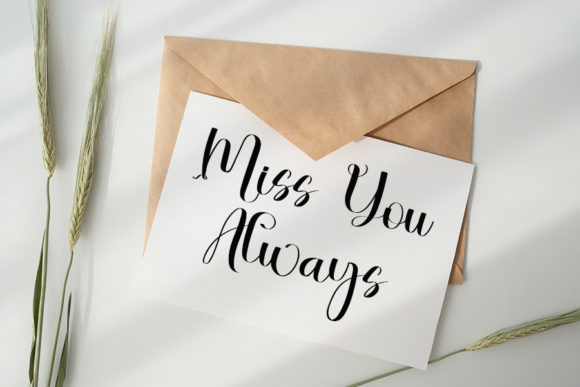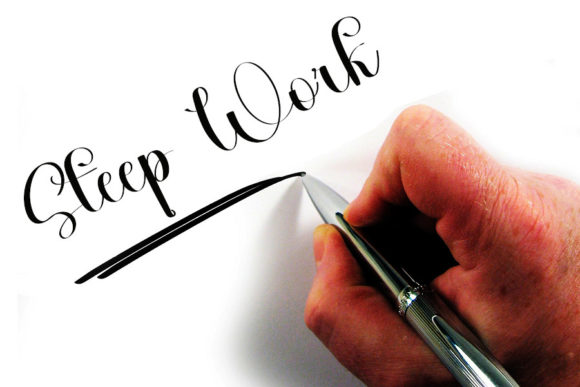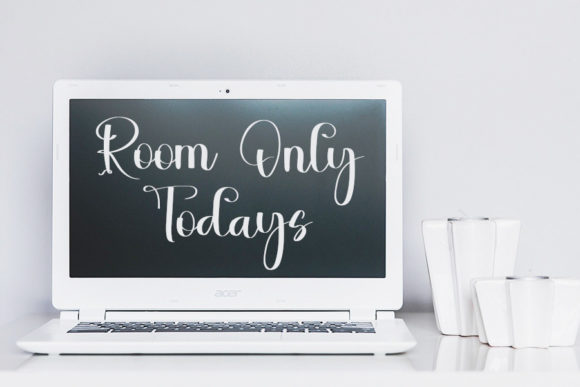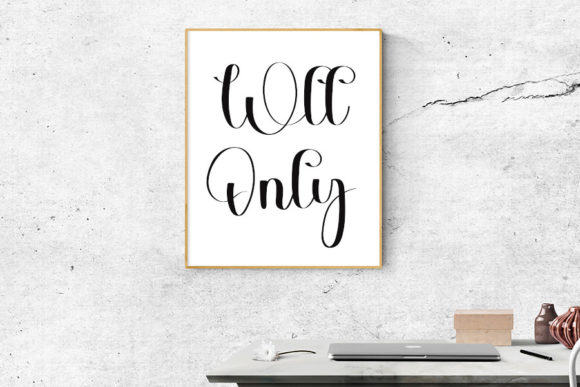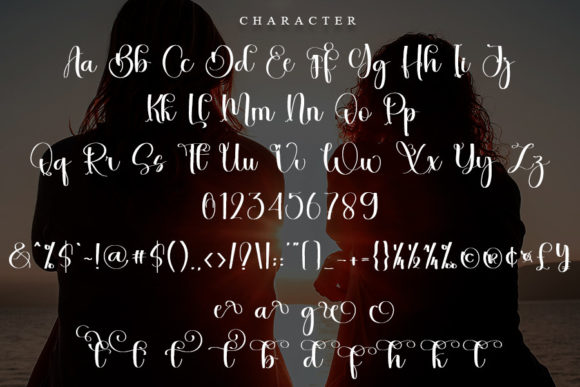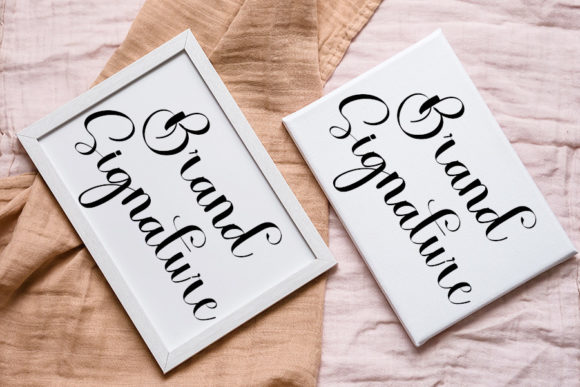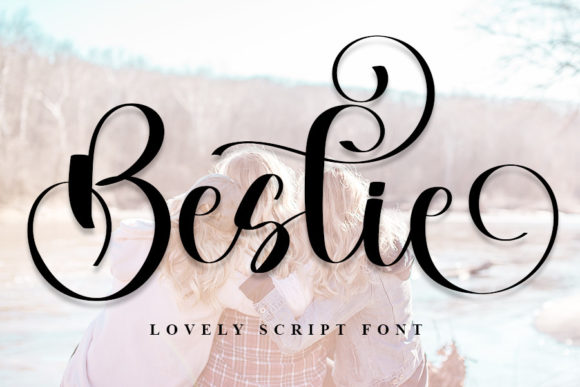
The Ultimate Guide to Bestie Font: Elevate Your Designs with Elegance
I’ll never forget the time I was working on a wedding invitation project, and my client asked for a font that exuded elegance and sophistication. I scoured the internet, tried countless fonts, but nothing seemed quite right. That was until I stumbled upon Bestie Font. ✨ It was love at first sight! With its refined script and modern look, it perfectly captured the essence of the wedding’s luxurious theme.
An Honest Review of Bestie Font
- ✨ Classy and Elegant: Bestie Font boasts a beautiful, refined script that adds a touch of sophistication to any design.
- ✅ Modern Look: Its modern aesthetic makes it perfect for a wide range of design projects, from logos and branding to social media posts.
- 💻 PUA Encoded: The font’s PUA encoding means you can easily access all the amazing glyphs and ligatures, making it a breeze to work with.
- 🎨 Versatile: Use it for invitations, stationery, wedding designs, and more – the possibilities are endless!
While Bestie Font is an excellent choice, there are a few minor things to keep in mind: 🤔
- ⚠️ Legibility at Small Sizes: As with many script fonts, Bestie may become less legible at very small sizes. It’s best used at larger sizes or for headlines.
- ⚠️ Pairing with Other Fonts: To maintain its elegance, pair Bestie with a simple, sans-serif font to avoid visual overload.
The Designer Inspiration Behind Bestie Font
Bestie Font was crafted with the modern designer in mind. Its creator aimed to produce a font that was not only elegant and refined but also versatile and easy to use. Inspired by the beauty of handwritten scripts and the cleanliness of modern typography, Bestie Font brings a touch of class to any design project.
Q: Is Bestie Font suitable for body text?
A: While Bestie Font is stunning, it’s primarily designed for headlines or short paragraphs. For body text, consider a more readable font to ensure your content is easily digestible.
Q: Does Bestie Font support multiple languages?